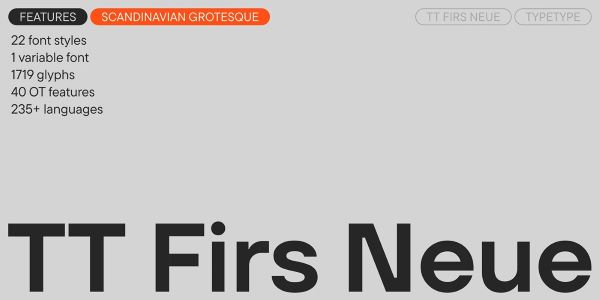
TT Firs Neue Font
TT Firs Neue by TypeType Foundry is a Scandinavian sans-serif that has earned its reputation through multiple refinements — reissued twice in pursuit of the visual harmony its designers knew it could achieve. Version 2.000 is the most considered iteration yet, arrived at through extensive visual research that brought consistency to its ink traps, unified the logic of rounded letterforms and bowl characters, and refined the handling of diagonals and terminals across all styles. Free trial available for personal use.